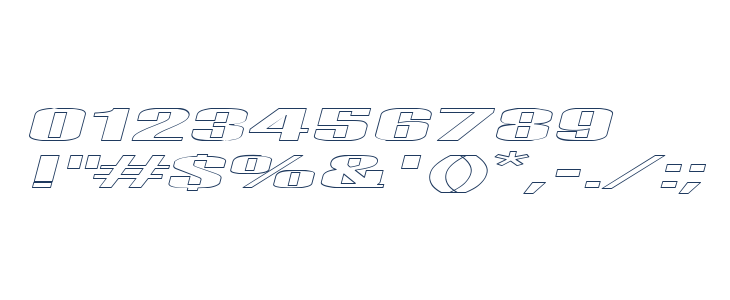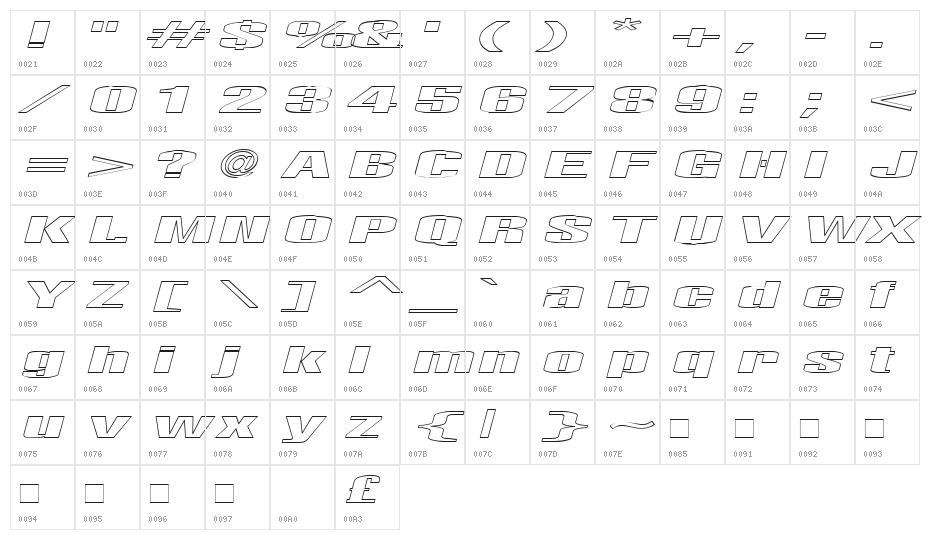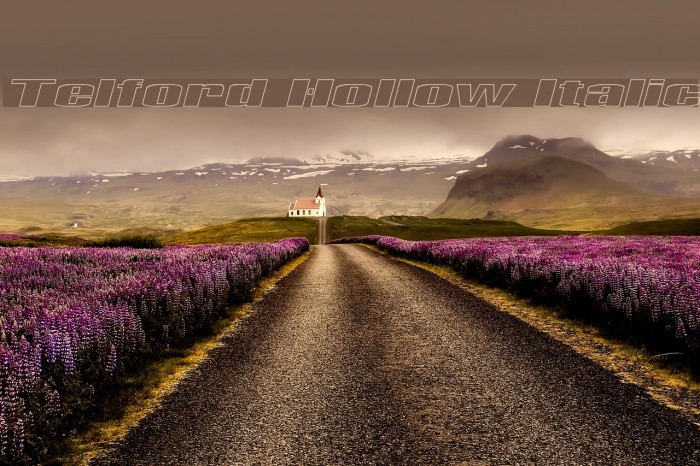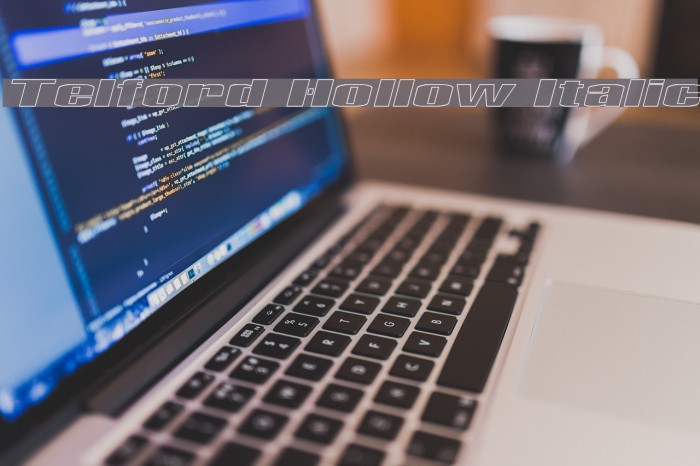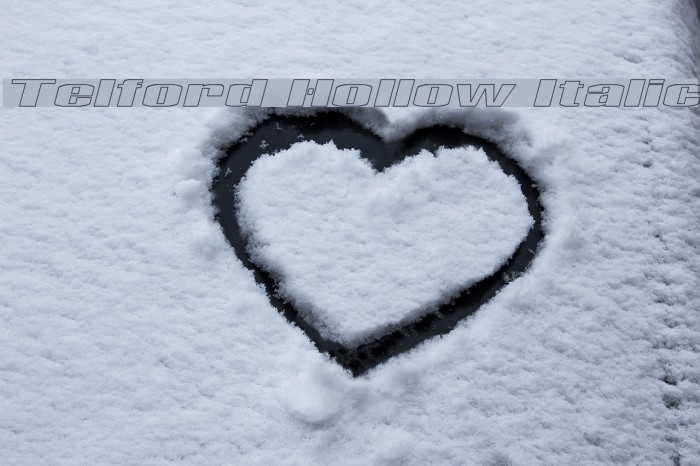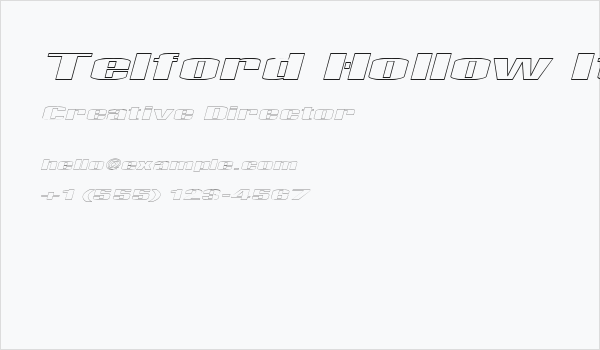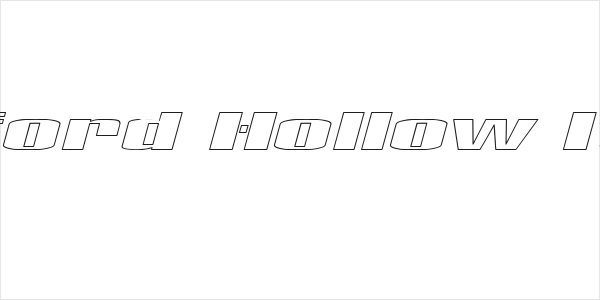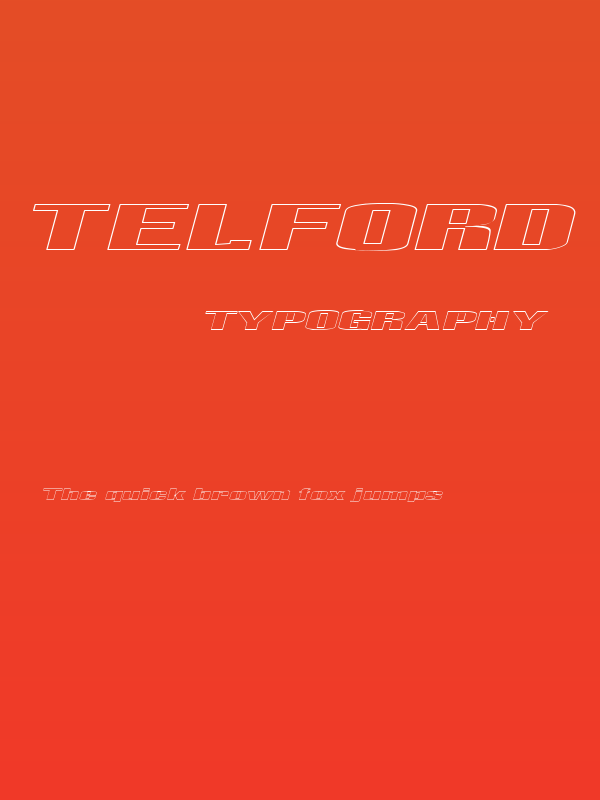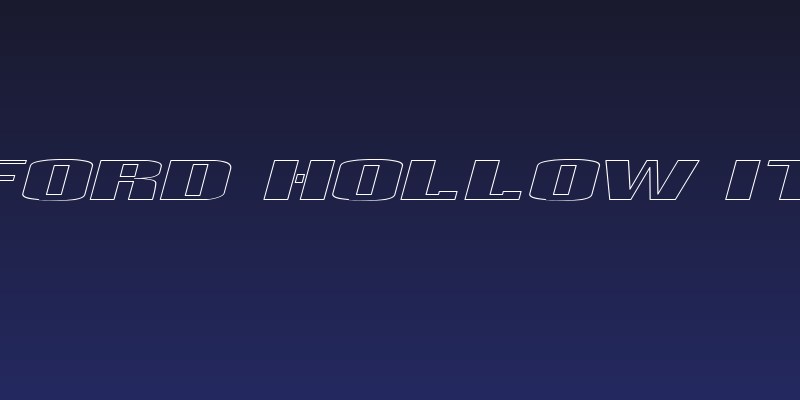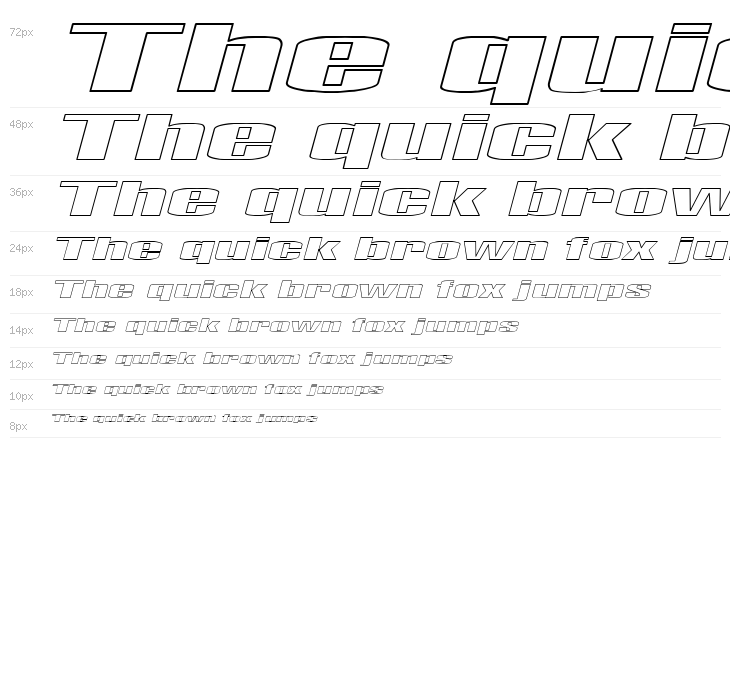
Telford Hollow Italic Font
Telford Hollow Italic Description
This font features a hollow, outlined design with a distinct italic slant, giving it a dynamic and modern appearance. The uppercase and lowercase letters maintain a consistent geometric structure, while the numbers and special characters follow the same stylistic approach. The font's hollow nature allows for creative use of background colors or textures to show through, making it versatile for various design applications. Its clean lines and uniform spacing contribute to a sleek and contemporary look, ideal for projects that require a bold yet elegant statement.